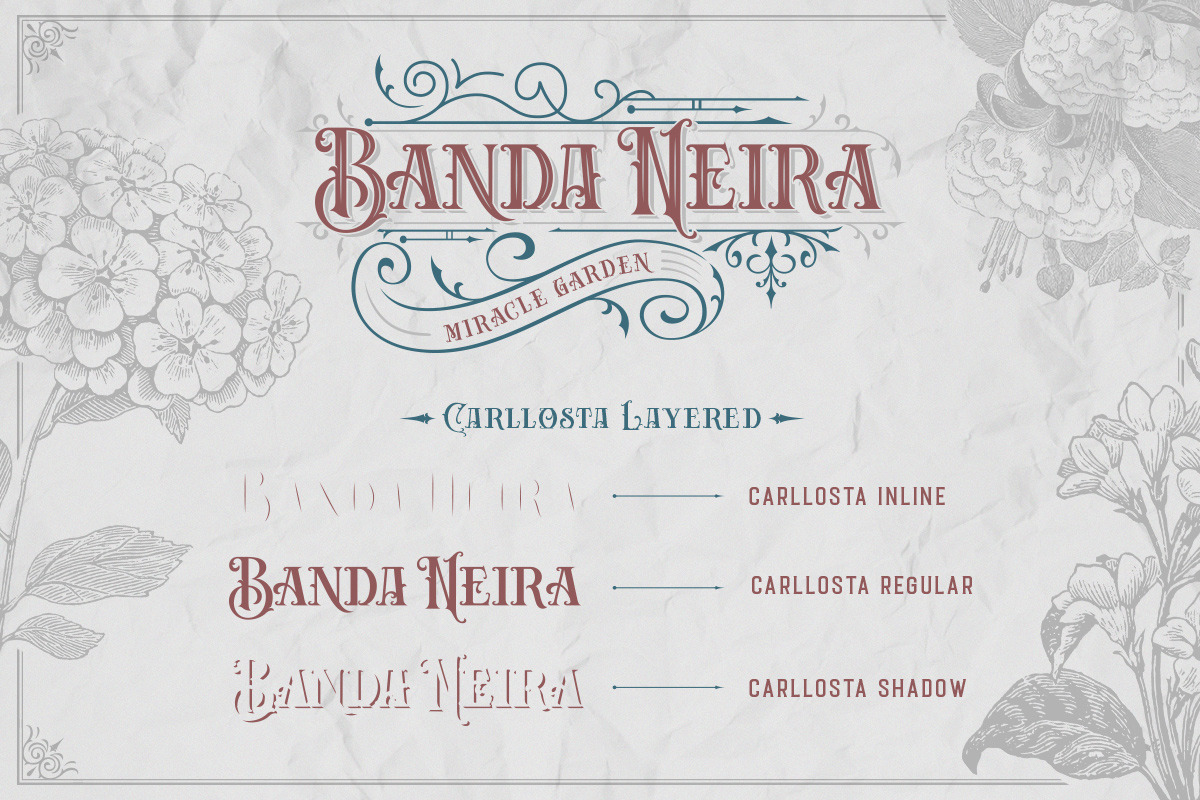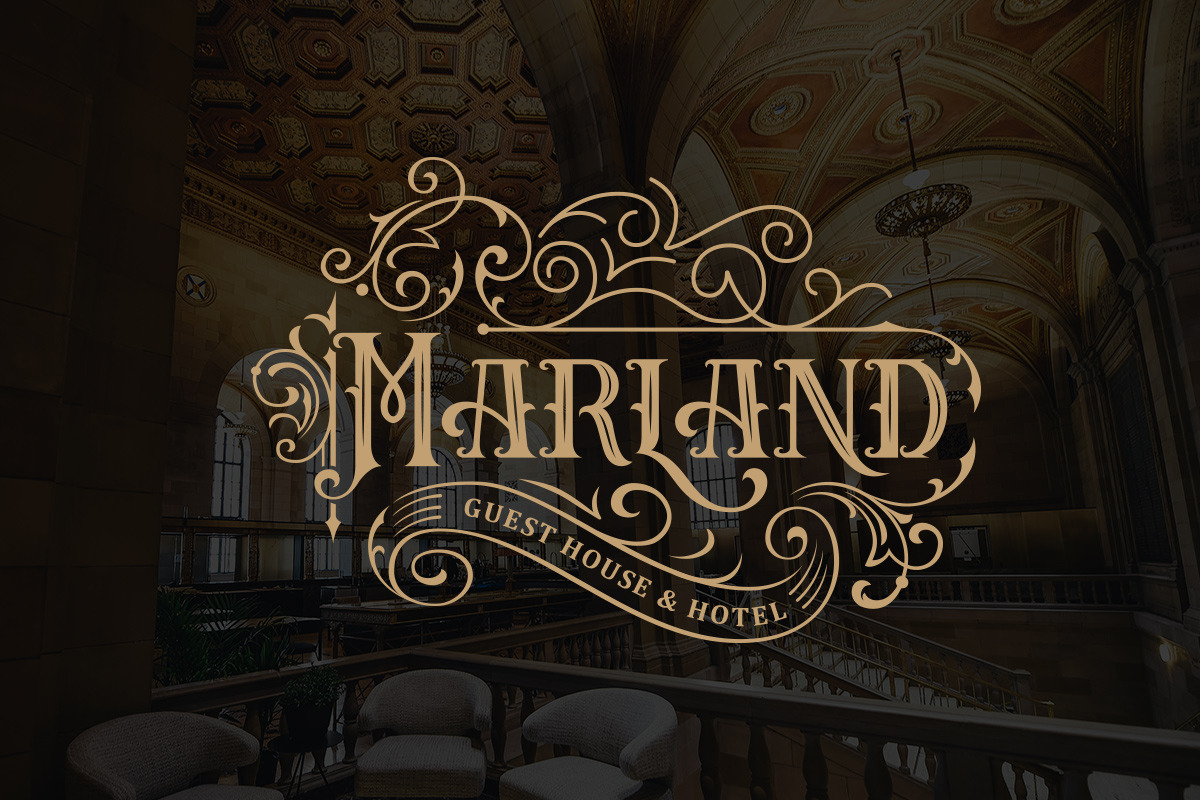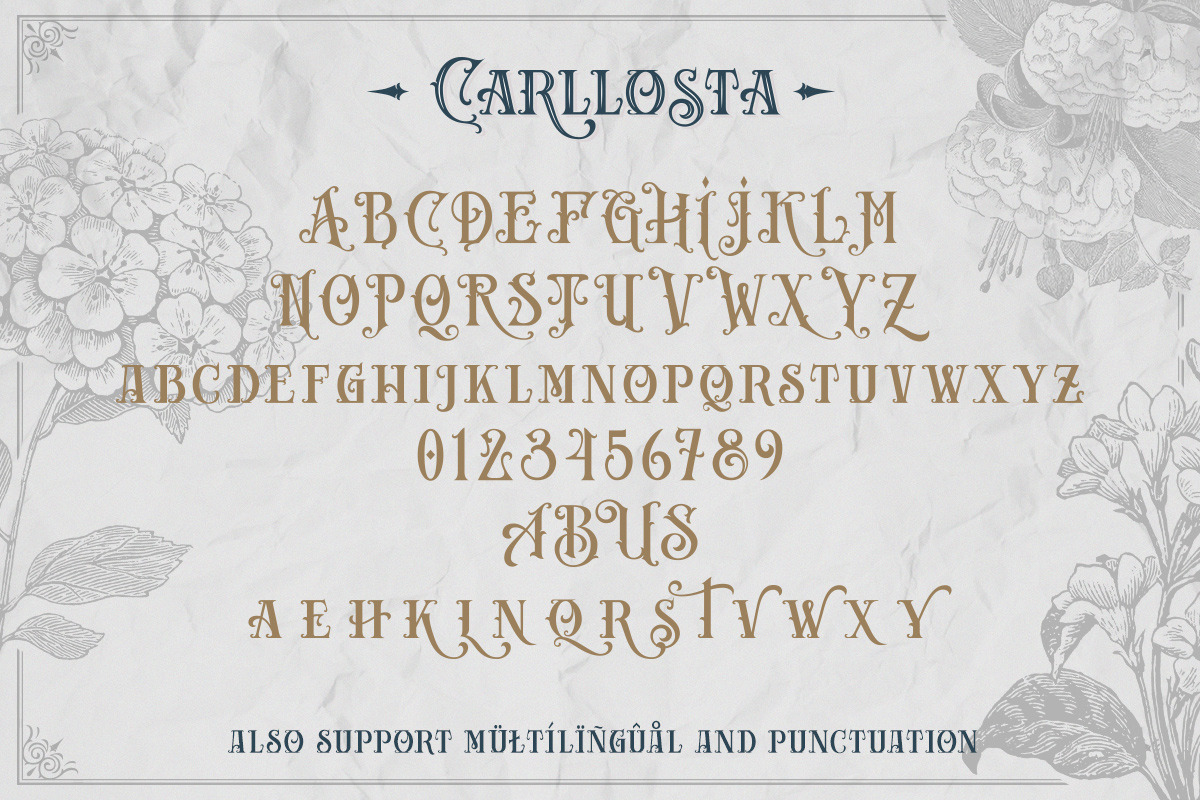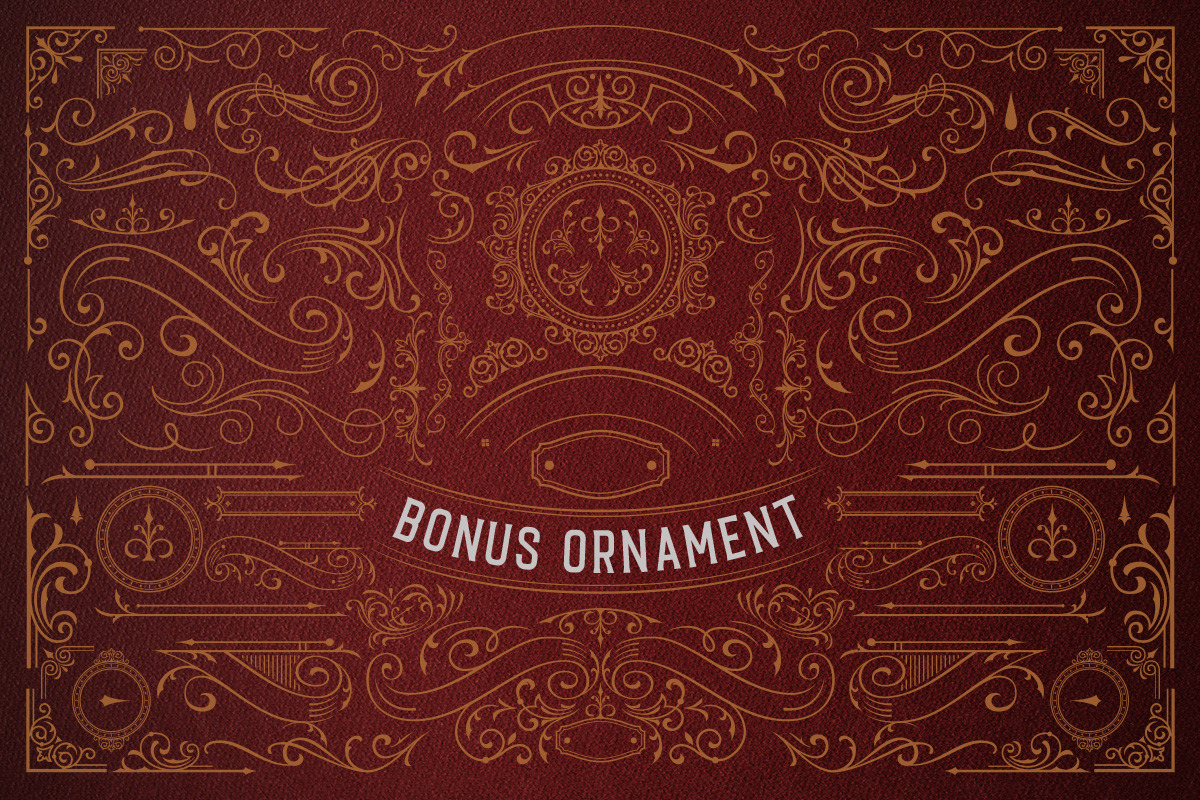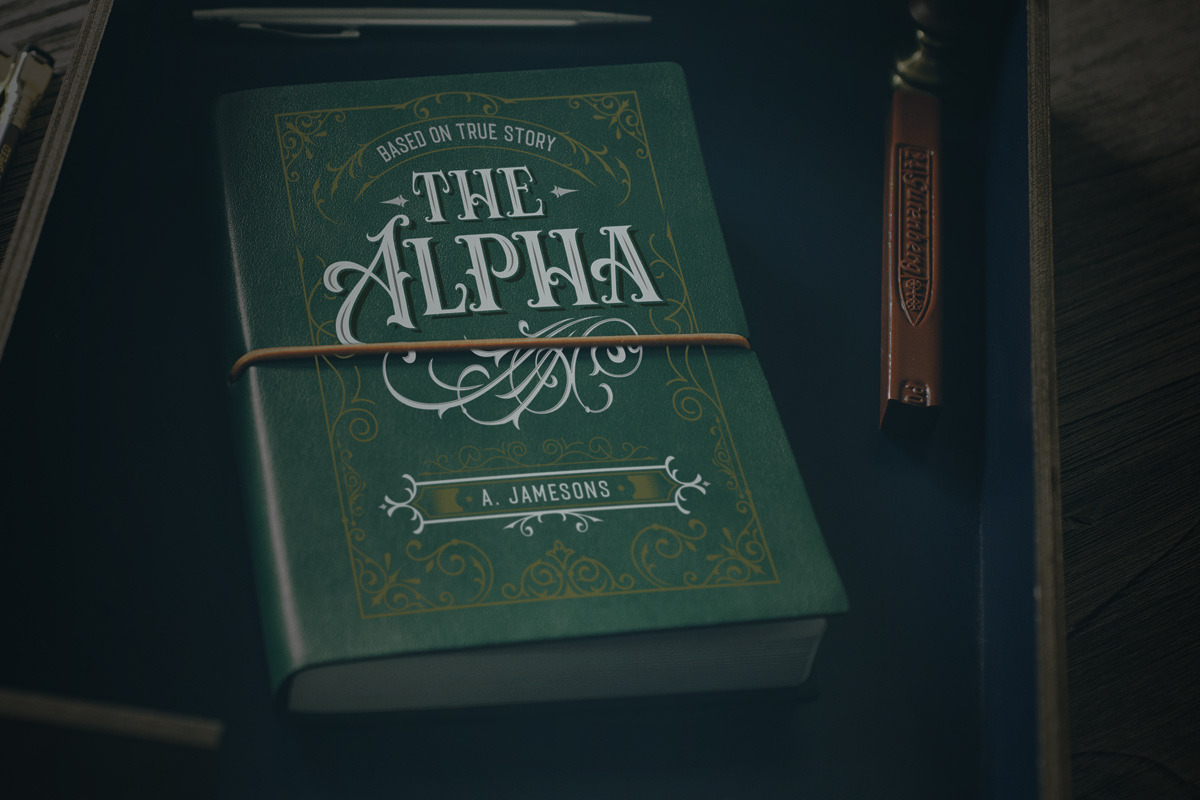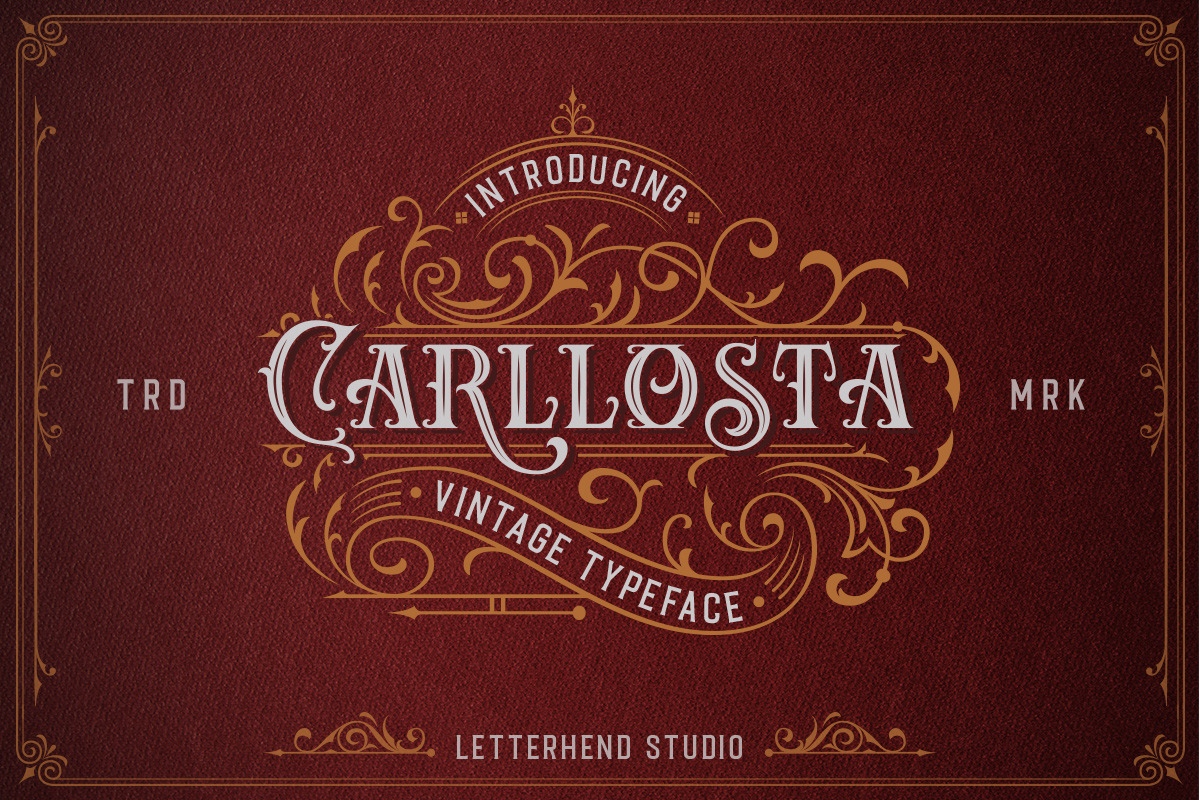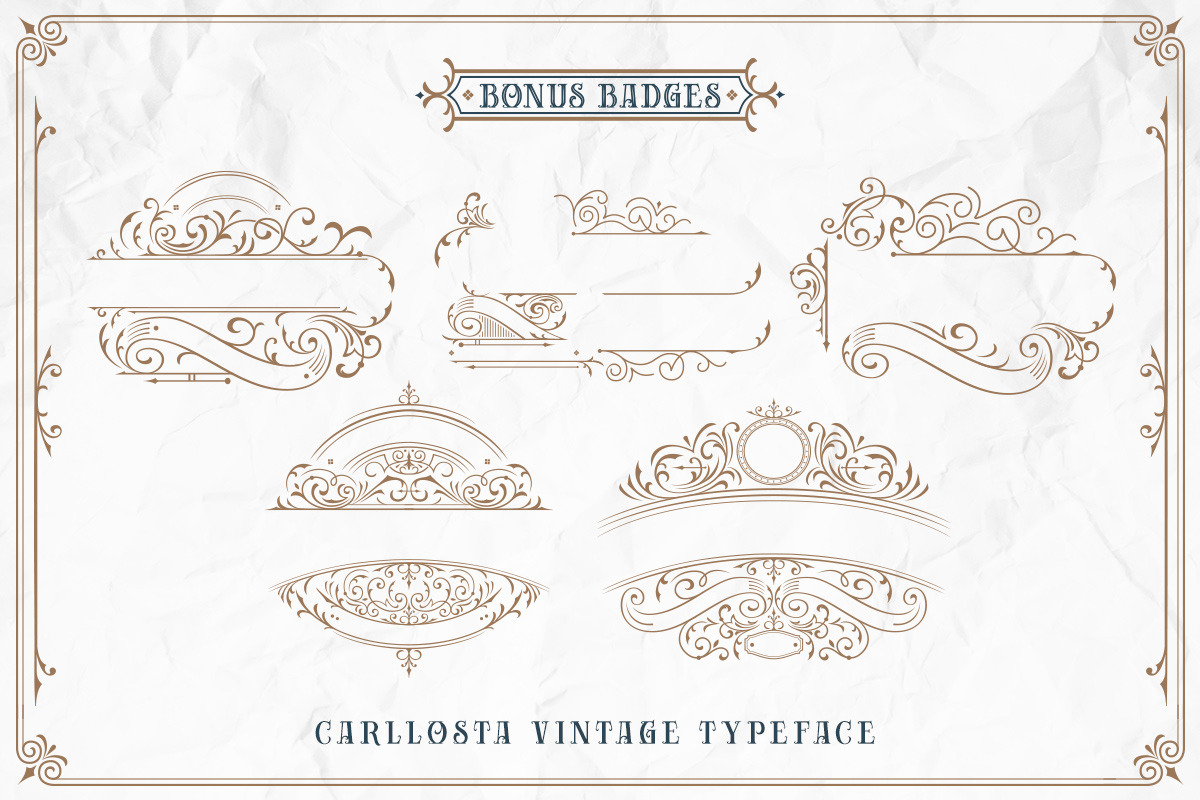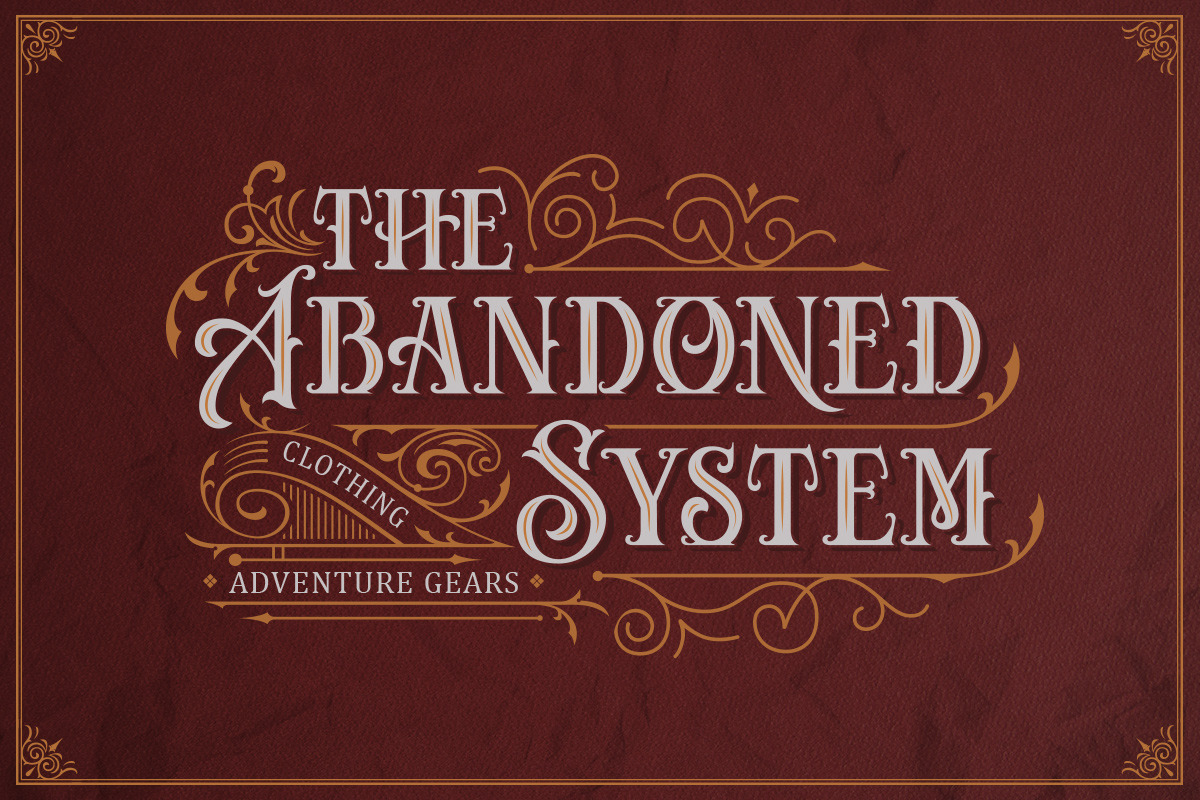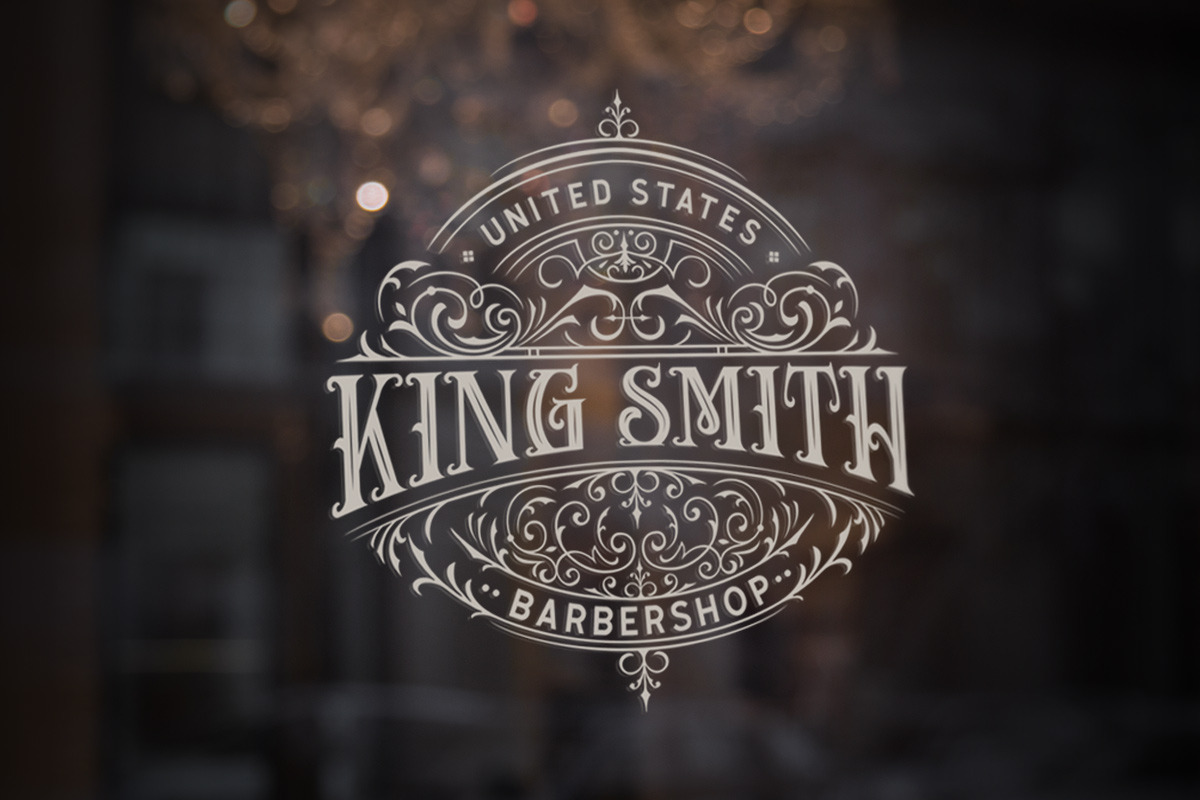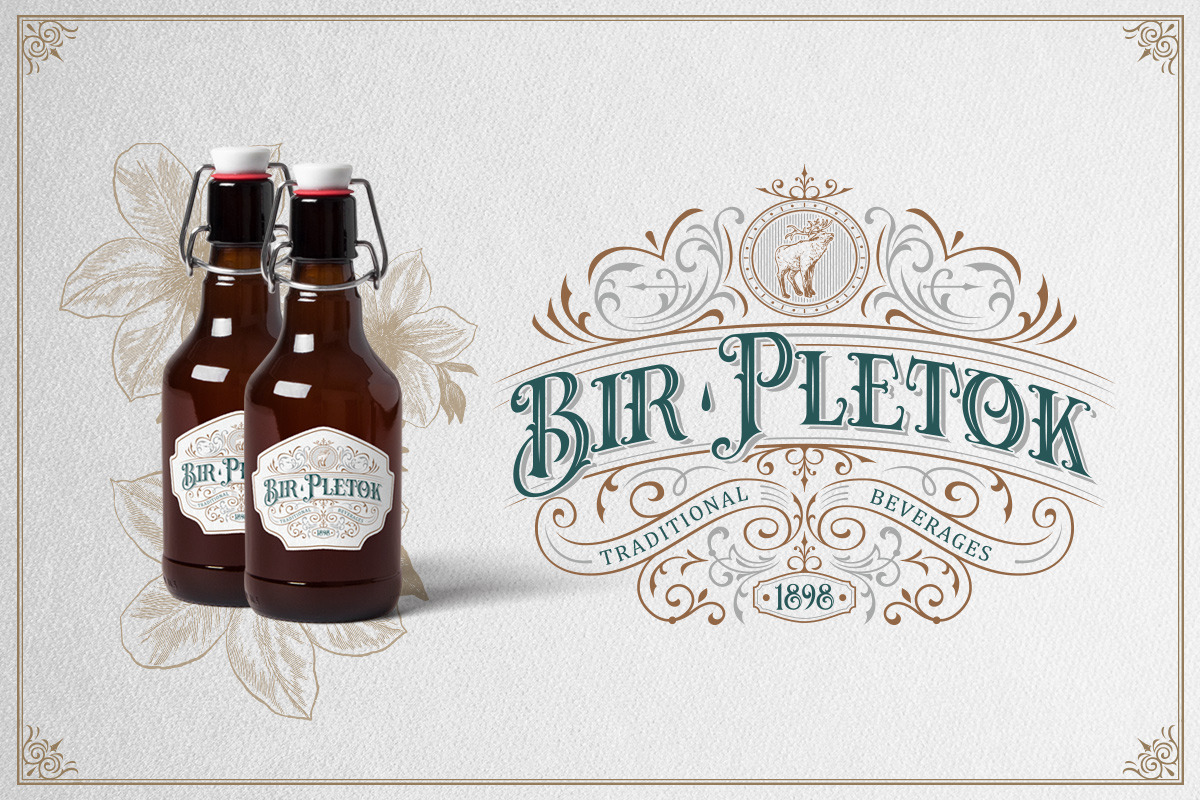
Carllosta - Layered Font (+EXTRAS)
Introducing, Carllosta, a Victorian style font.
Carllosta is a layered typeface which is inspired by vintage lettering sign and art. While this font has a victorian touch, it still looks bold and solid. Very suitable for for headline, logotype, apparel, invitation, branding, packaging, advertising etc.
This typeface contains with beautiful decorative ornaments that ready to use to create a vintage lettering in sec. It also comes in uppercase, lowercase, punctuations, symbols & numerals, stylistic set alternate, ligatures, etc also support multilingual and already PUA encoded.
Foreign Languages Support: ÀÁÂÃÄÅÇÈÉÊËÌÍÎÏÑÒÓÔÕÖØÙÚÛÜÝßàáâãäåæçèéêëìíîïñòóôõöøùúûüýÿ